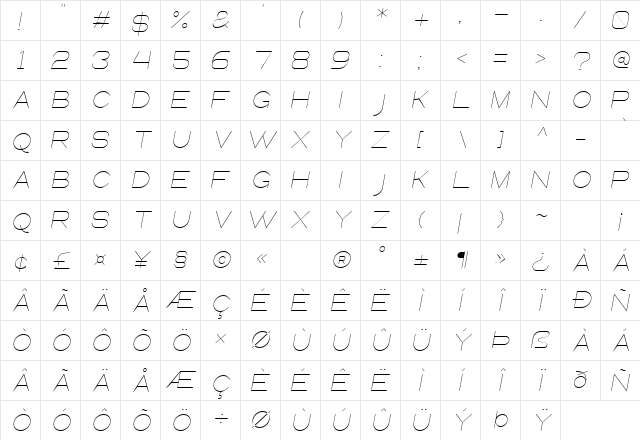
Queental Light Italic Font Preview
Queental Light Italic
Design Context for Queental Typeface
Queental is a composed and adaptable typeface that performs quietly and consistently across a wide range of design contexts. Its italic angle brings a sense of urgency and motion to the letterforms. Its slender proportions lend an understated elegance to any composition.